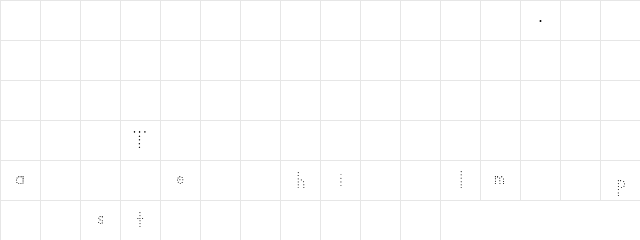
SD Manuscript Dotted S Regular
Design Context for SD Manuscript Dotted S Typeface
SD Manuscript Dotted S celebrates the constraints of early digital type, turning pixel geometry into a distinctive and immediately recognisable style.
A natural choice for retro game titles, chiptune music branding, 8-bit UI, and digital nostalgia projects.
Pro Tip: Pair SD Manuscript Dotted S with flat colour palettes and simple geometric UI elements to reinforce its digital aesthetic.